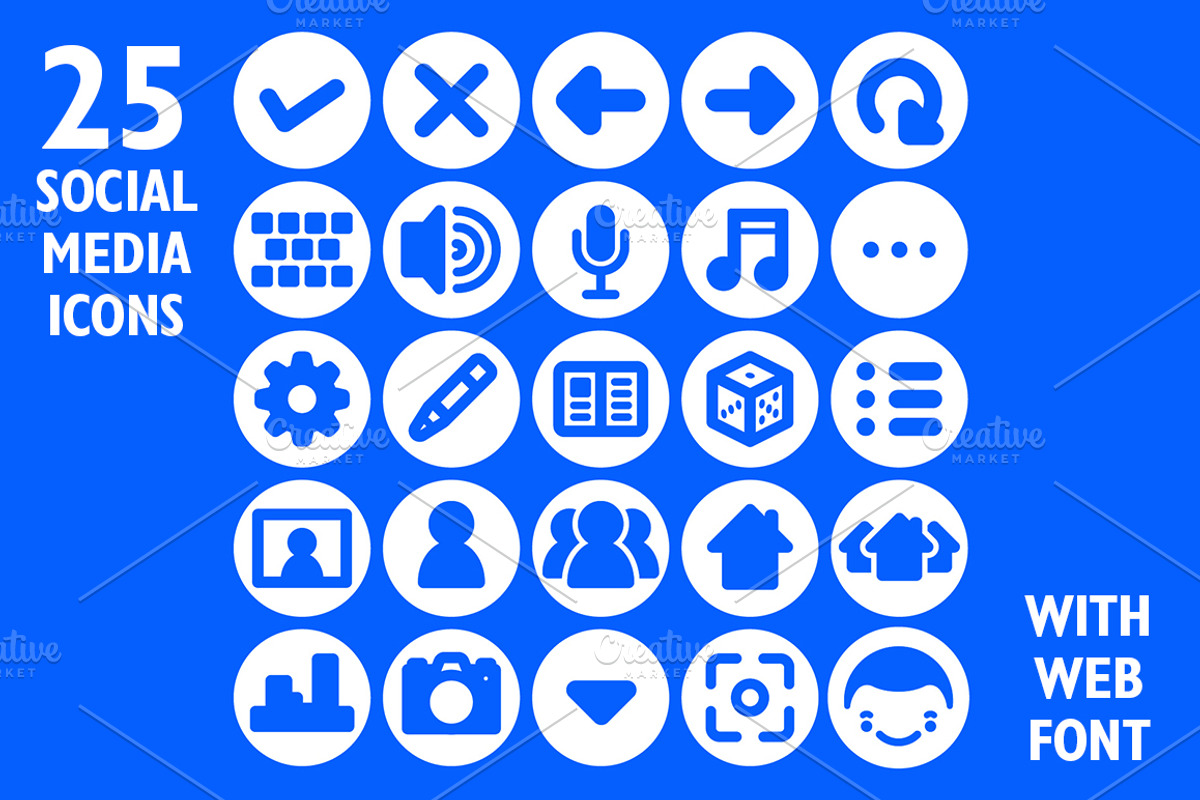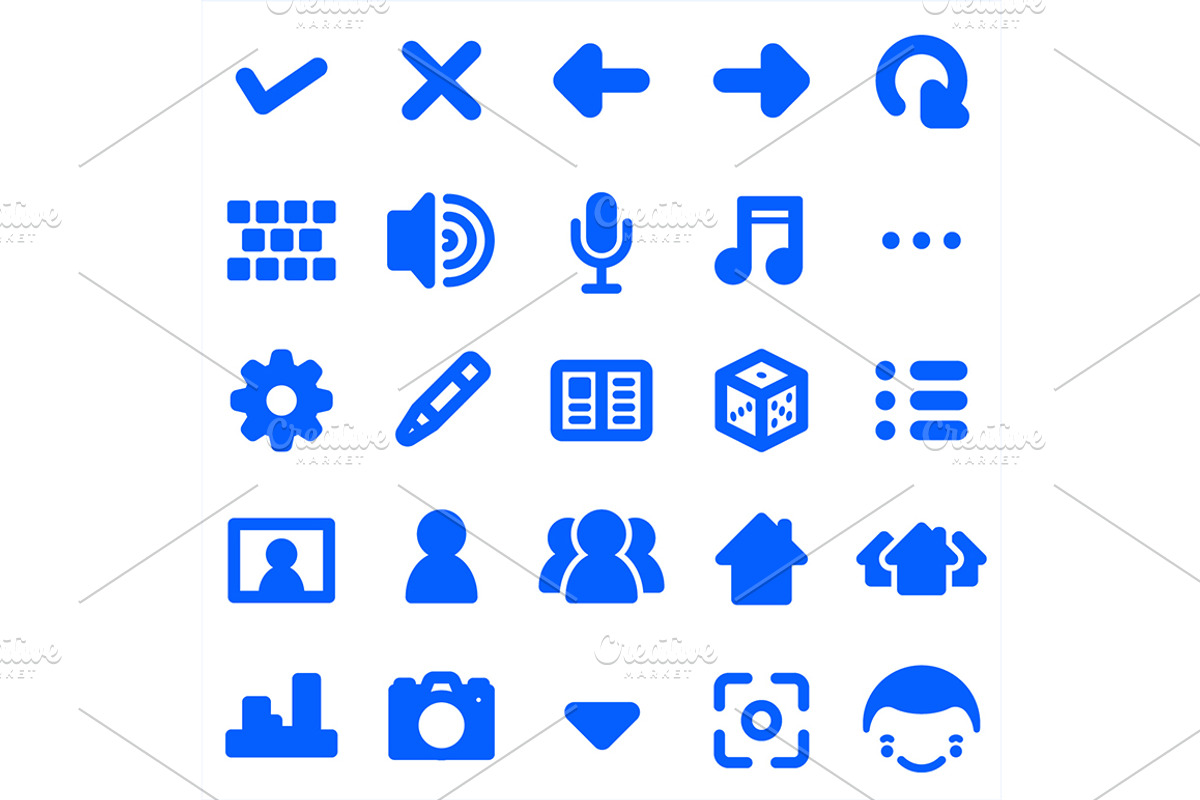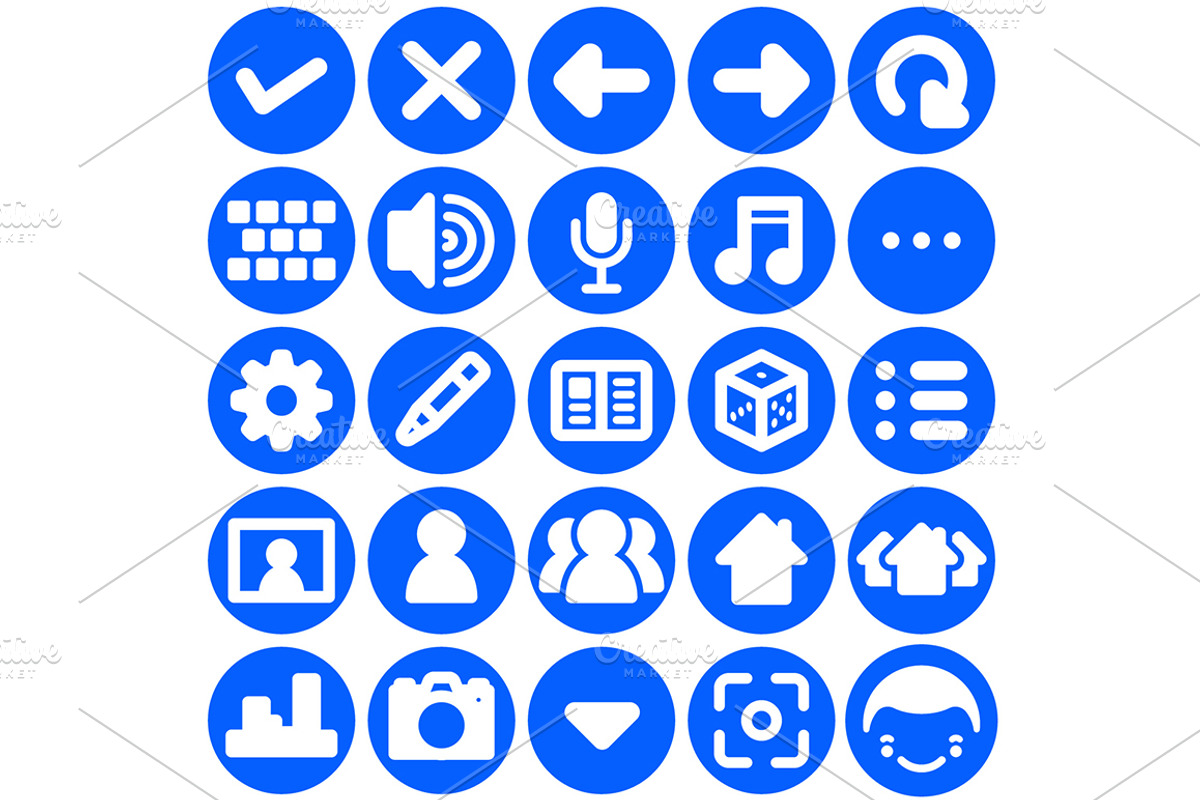
Social Media App Icon Set & Web Font
Social Media App Icon Set & Web Font by ToonPlanet Vector Assets is a font selected for branding, posters, packaging, typography.
- 3 different styles included. (3D red, silver and flat)
- Complete quickly the interface of your new app or software
- Give intuitive navigation control to users
- Improve user experience and usability
- Universal menu buttons and no need of languages and translations
- Multimedia and social icons for online platforms, apps and video games in desktop computers, laptops, tablets and smartphones Vector and bit